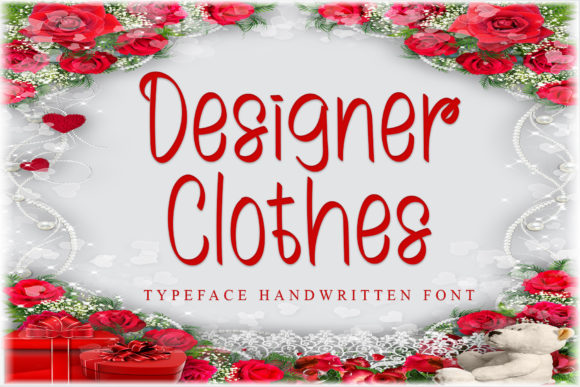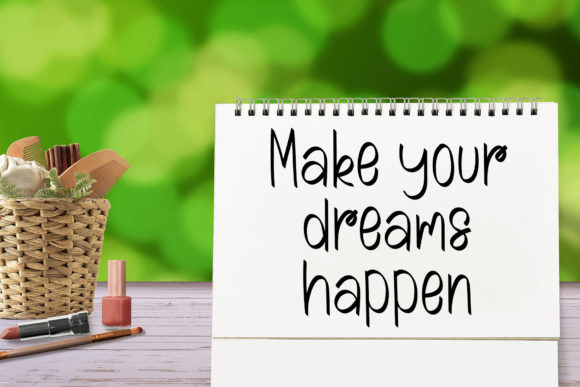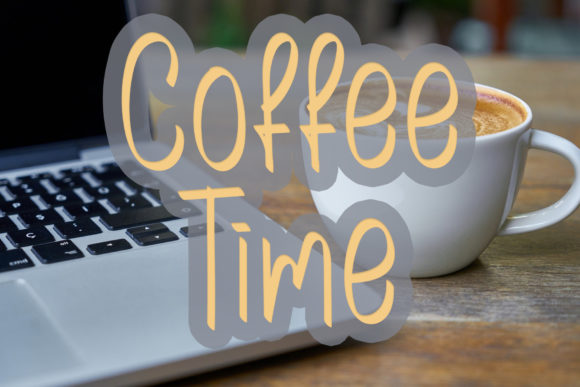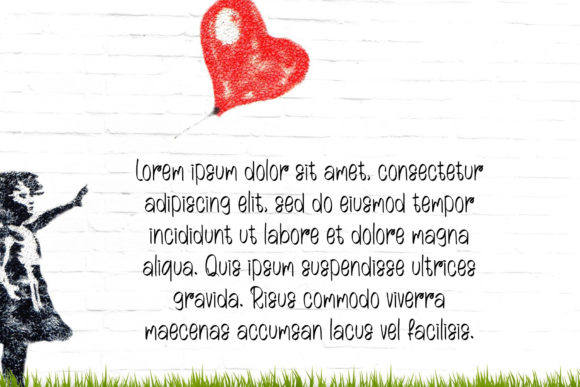
Designer Clothes
Designer Clothes: A Unique and Elegant Handwritten Font
Designer Clothes is a distinctive font that combines uniqueness with elegance. This versatile typeface is designed to add a natural, handmade touch to a wide range of projects, making it perfect for designs that require a handwritten feel.
Key Features of Designer Clothes
• Unique Design: Features distinctive letterforms that stand out from typical fonts.
• Elegant Aesthetic: Offers a refined and sophisticated look suitable for various applications.
• Varied Baseline: Incorporates a natural, uneven baseline to enhance the handwritten appearance.
• Handmade Touch: Created to mimic the organic feel of handwriting.
• Versatile Application: Suitable for a wide range of projects, from wedding invitations to business cards.
Ideal Uses for Designer Clothes
Designer Clothes’ unique characteristics make it particularly well-suited for:
• Wedding invitations and stationery
• Greeting cards
• Billboards and large-scale advertising
• Logo designs
• Business cards
• Any design requiring a handwritten touch
When incorporating Designer Clothes into your designs, consider the following tips:
• Use for headlines or short blocks of text to showcase its unique handwritten style
• Experiment with different sizes to highlight the font’s elegant details
• Take advantage of its varied baseline to create a natural, flowing look in your designs
Designer Clothes is an excellent choice for designers looking to add a unique and elegant handwritten font to their typographic toolkit. Its ability to enhance various design projects with a natural, handmade touch makes it stand out in the world of typography. Whether you’re working on logo designs, creating layouts for wedding invitations, or developing any project that requires a handwritten feel, Designer Clothes offers the perfect blend of uniqueness and elegance.
Add Designer Clothes to your creative projects and explore how it can elevate your designs with its distinctive style. From elegant wedding stationery to eye-catching billboards, this font provides the tools to create impactful and memorable typography that resonates with audiences seeking a personal and refined aesthetic. It’s versatile enough to be used in various contexts, from vintage-inspired designs with a modern twist to more playful layouts that need a touch of sophistication.
Whether you’re creating a magical and whimsical atmosphere or aiming for a more thoughtful and introspective mood in your designs, Designer Clothes can adapt to your needs. Its flexibility allows it to work well in both rustic, vintage-style projects and contemporary designs that require a personal touch. For those looking to add a touch of elegance with a handwritten feel, this font can even complement vintage-inspired creations with a unique, natural twist.